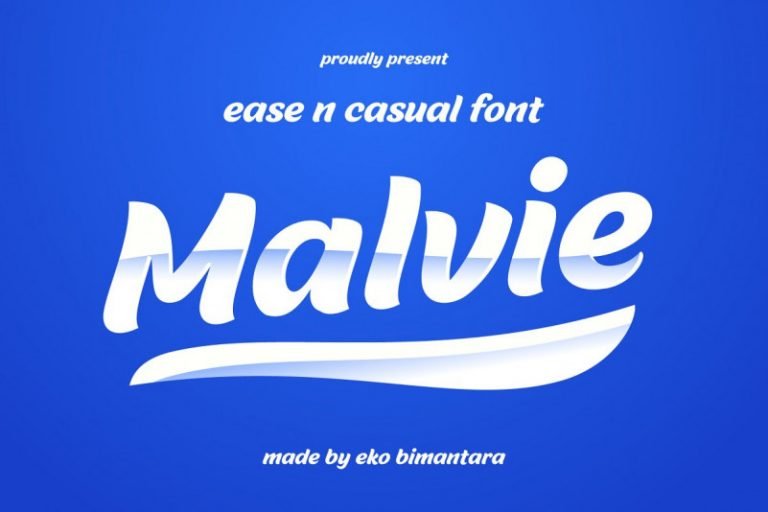
Malvie Bold Script Font
Hello Guys! Thank you for looking Malvie Fun and Casual Font. A new Layered bold script font. Malvie inspired by handlettering, bold script logotype and kids font. It is design and shared by Eko Bimantara. Malvie is casual, groovy and friendly font. Made for titling and products, branding, packaging, display, signage and other fit-for-bold medium. Each glyphs shown dynamic curves, especially with the stems which is personalized by heavy swinging stroke.